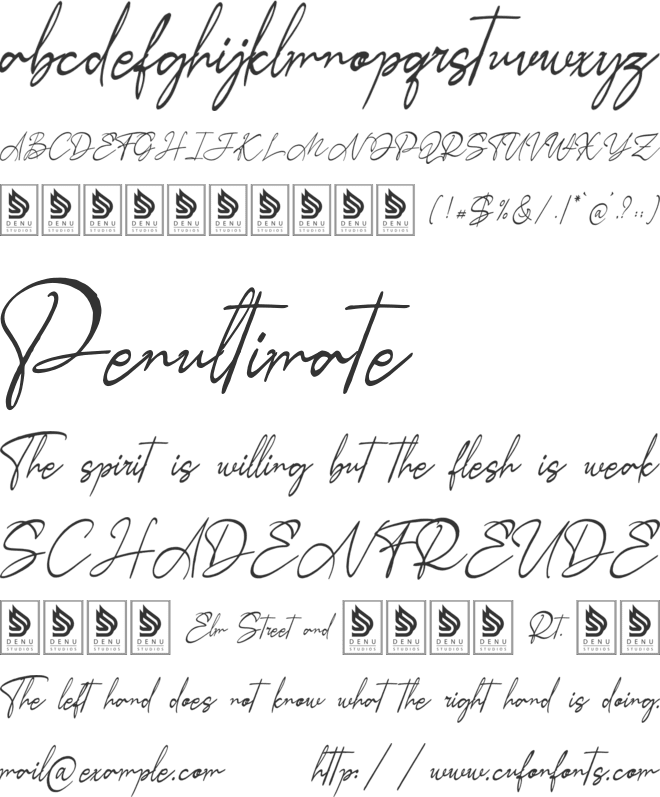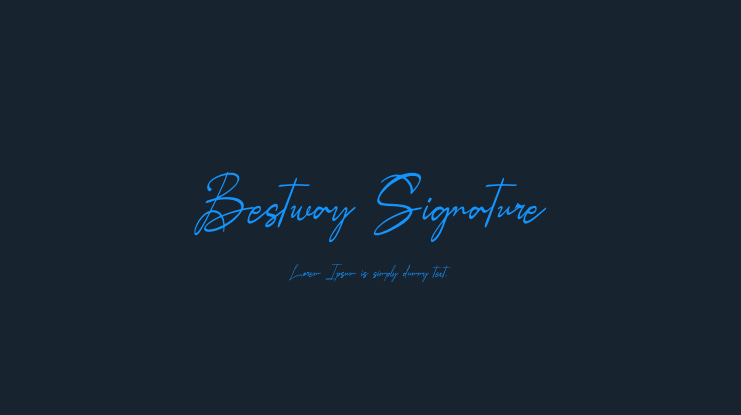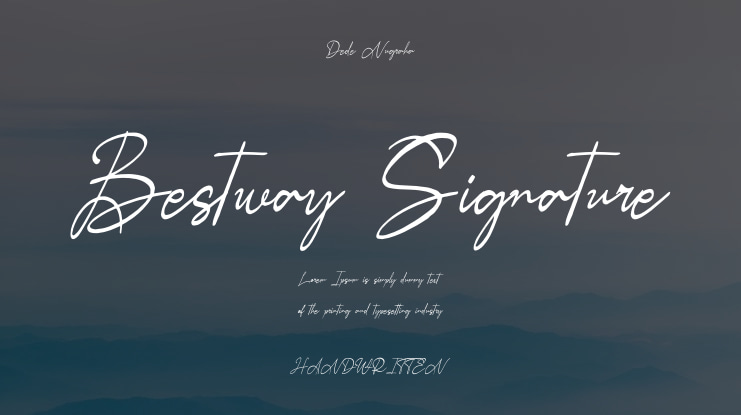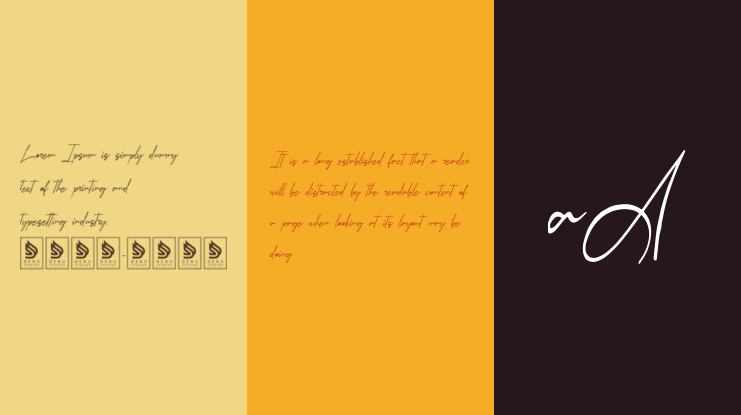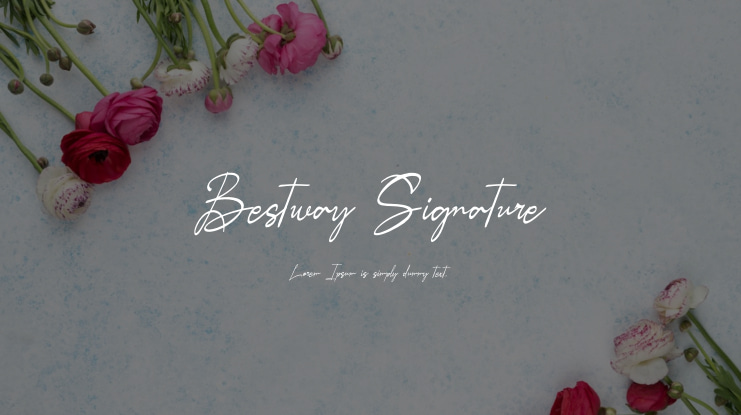
**Bestway Signature | Casual Signature Font**
Bestway Signature is a Casual Signature Font perfect for a variety of projects such as logos, branding, homeware designs, product packaging, mugs, quotes, posters, shopping bags, t-shirts, book covers, name cards, invitation and greeting cards, labels, photography, watermarks, special events, and any other creative projects needing a casual signature font touch.